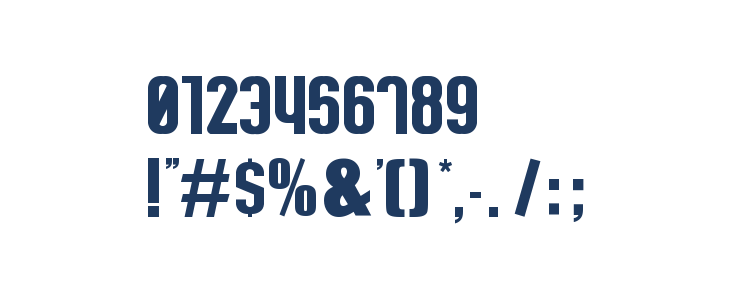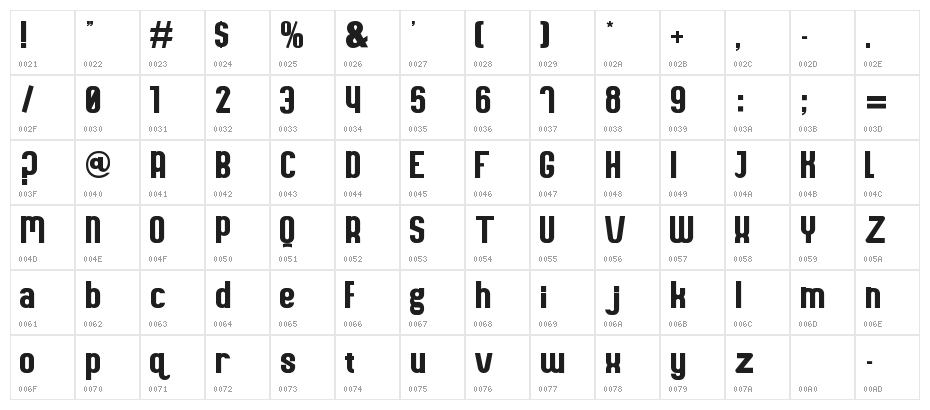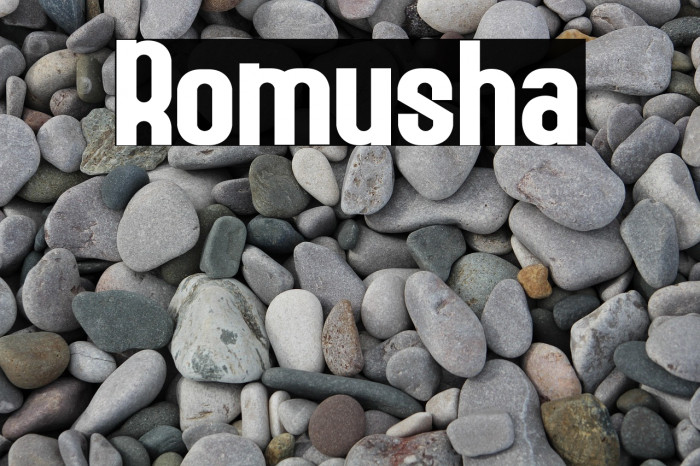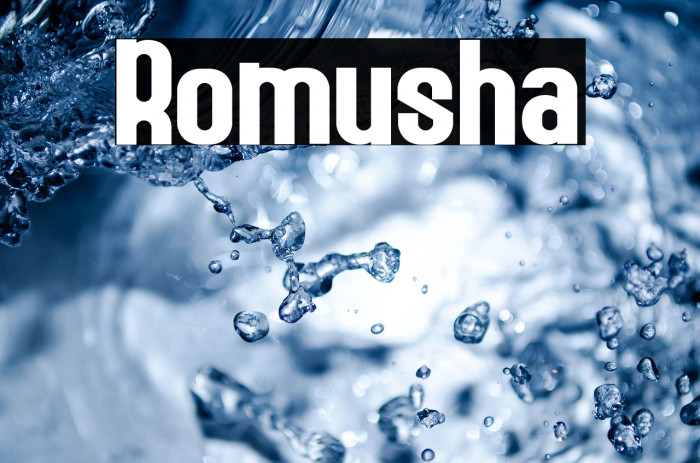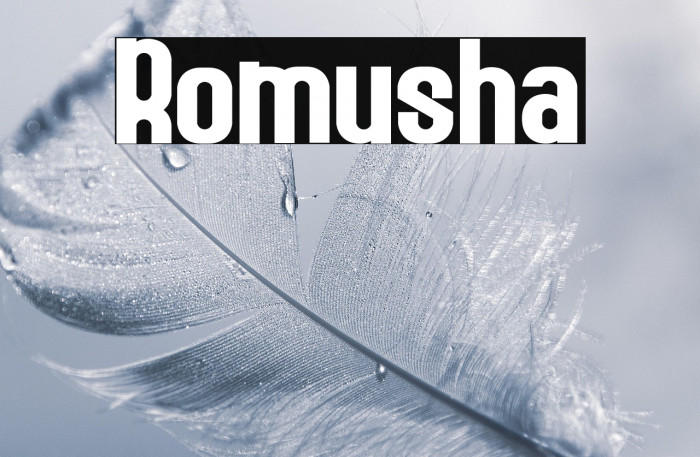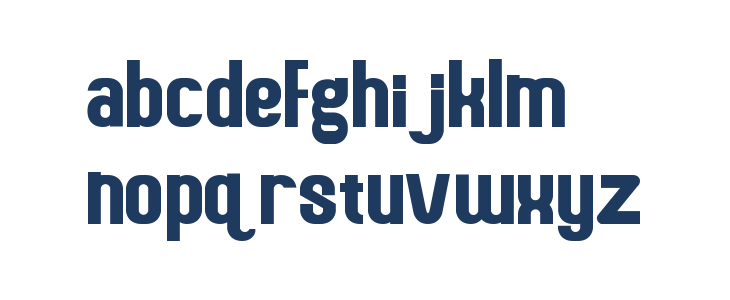
Romusha Font
Romusha Description
This font features a bold and robust design with a strong presence. The characters are uniformly thick, providing a consistent and impactful appearance. The uppercase letters are tall and commanding, while the lowercase letters maintain a similar weight, ensuring readability and balance. The numerals are distinct and easily distinguishable, complementing the overall bold style. Special characters are designed with the same boldness, making them stand out effectively. The font's design is modern and slightly condensed, giving it a unique and contemporary look.
| Proposed Projects | Ideal for headlines, posters, branding, and advertising materials where a strong visual impact is needed. |